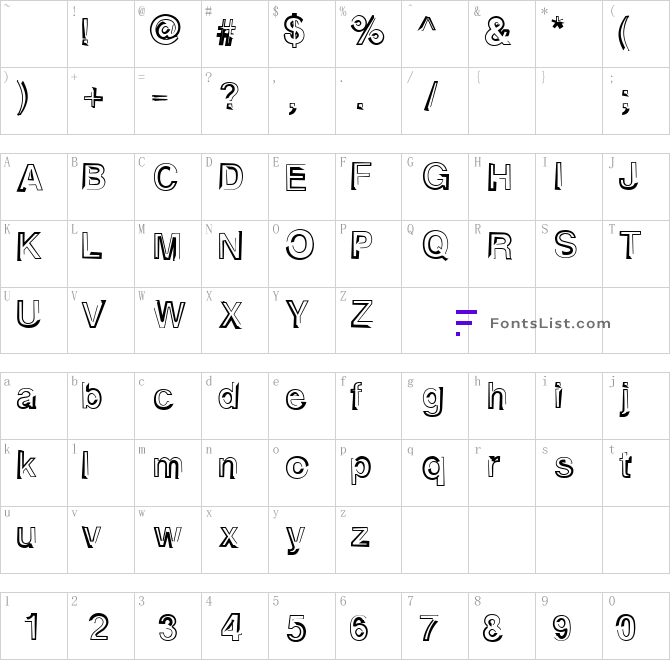
- Font Name:AlphaSevenTeen
AlphaSevenTeen.ttf is a very beautiful artistic font, AlphaSevenTeen.ttf is widely used in the design and printing of various books and pictures,AlphaSevenTeen.ttf has a strong visual impact,AlphaSevenTeen.ttf is a commonly used font in newspapers, magazines and books, and is used in posters, e-commerce Poster design, store design, logo design, font design and other fields.AlphaSevenTeen.